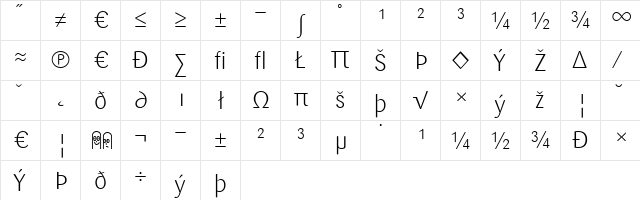
Sari Light Font Preview
Sari Light
Sari Light Font Details
| Foundry | Hans Reichel, . Published by FontShop International. FontFont Release |
Design Context for Sari Typeface
Sari is a composed and adaptable typeface that performs quietly and consistently across a wide range of design contexts. Its slender proportions lend an understated elegance to any composition.